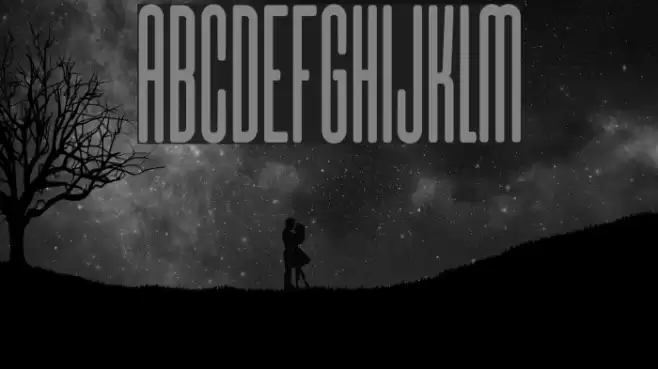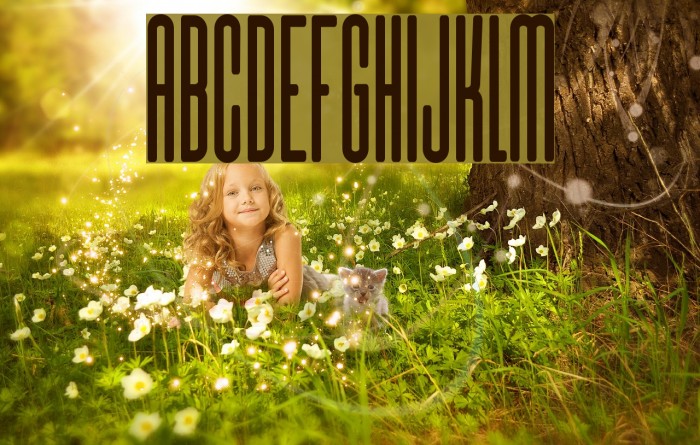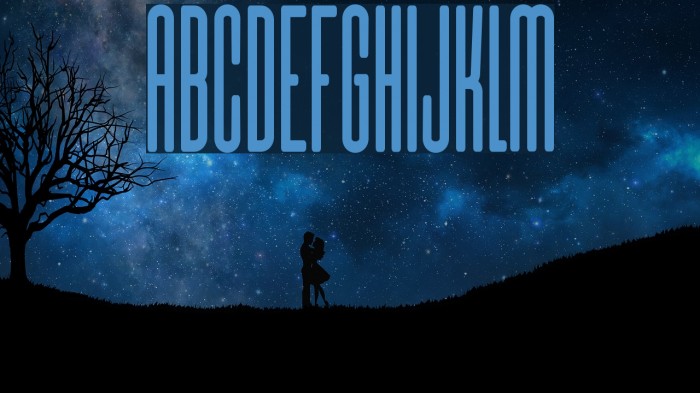
Muhaqu-RegularPersonalUse Font
Muhaqu-RegularPersonalUse Description
This font features a highly condensed and elongated design, characterized by tall, narrow letters with minimal spacing between characters. The vertical emphasis is pronounced, giving it a striking and modern appearance. The strokes are consistent in thickness, contributing to a uniform and sleek look. The uppercase and lowercase letters maintain a cohesive style, while the numerals and special characters align seamlessly with the overall aesthetic. This font's unique structure makes it ideal for creating impactful visual statements.
A tall, narrow, and modern font with consistent stroke thickness from Uncategorized fonts.
- Proposed Projects: Ideal for posters, headlines, and branding projects where a bold and modern statement is desired.
- Character Spacing: Tight